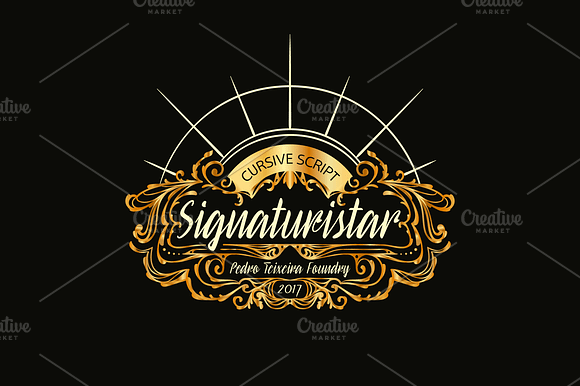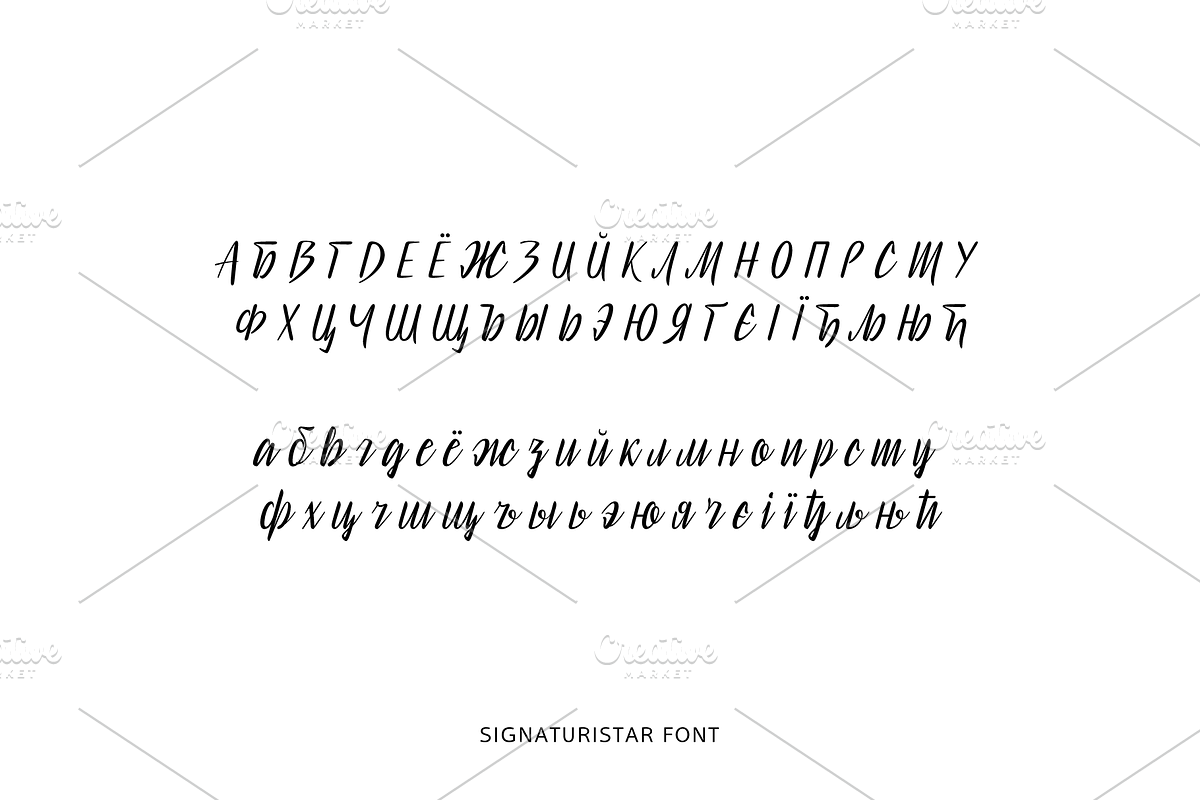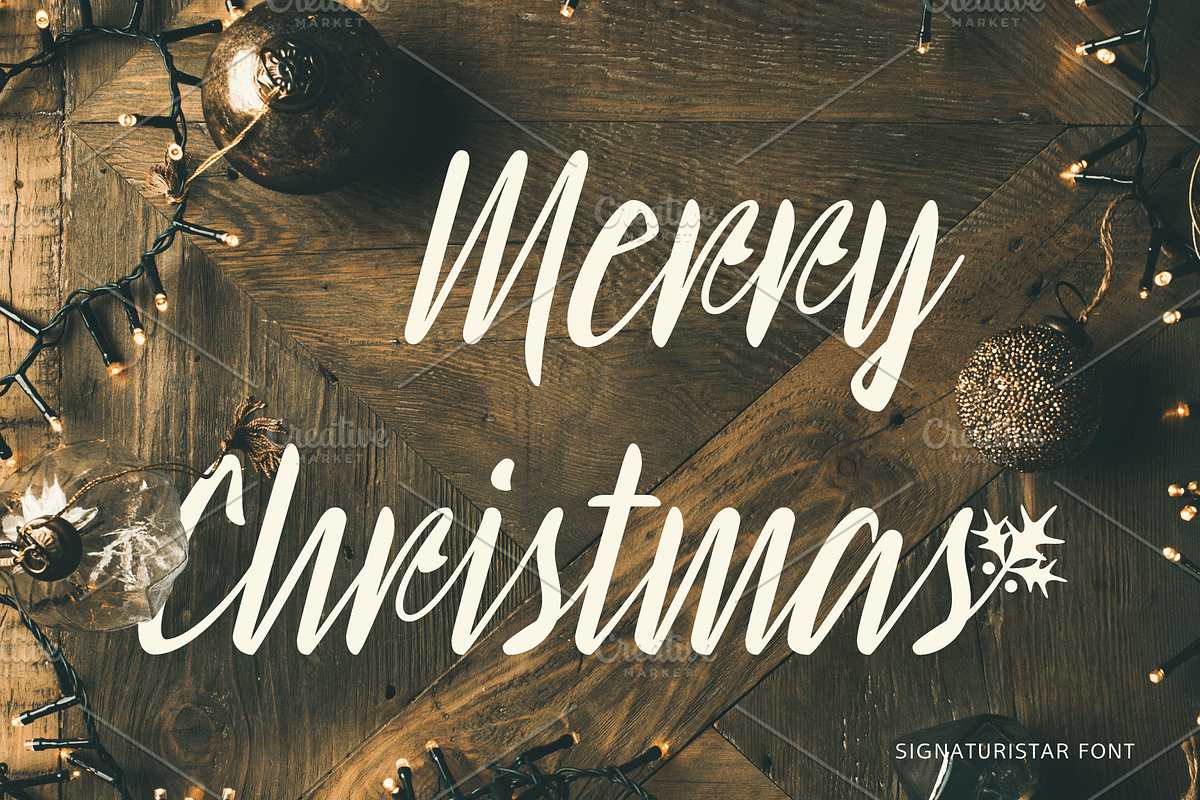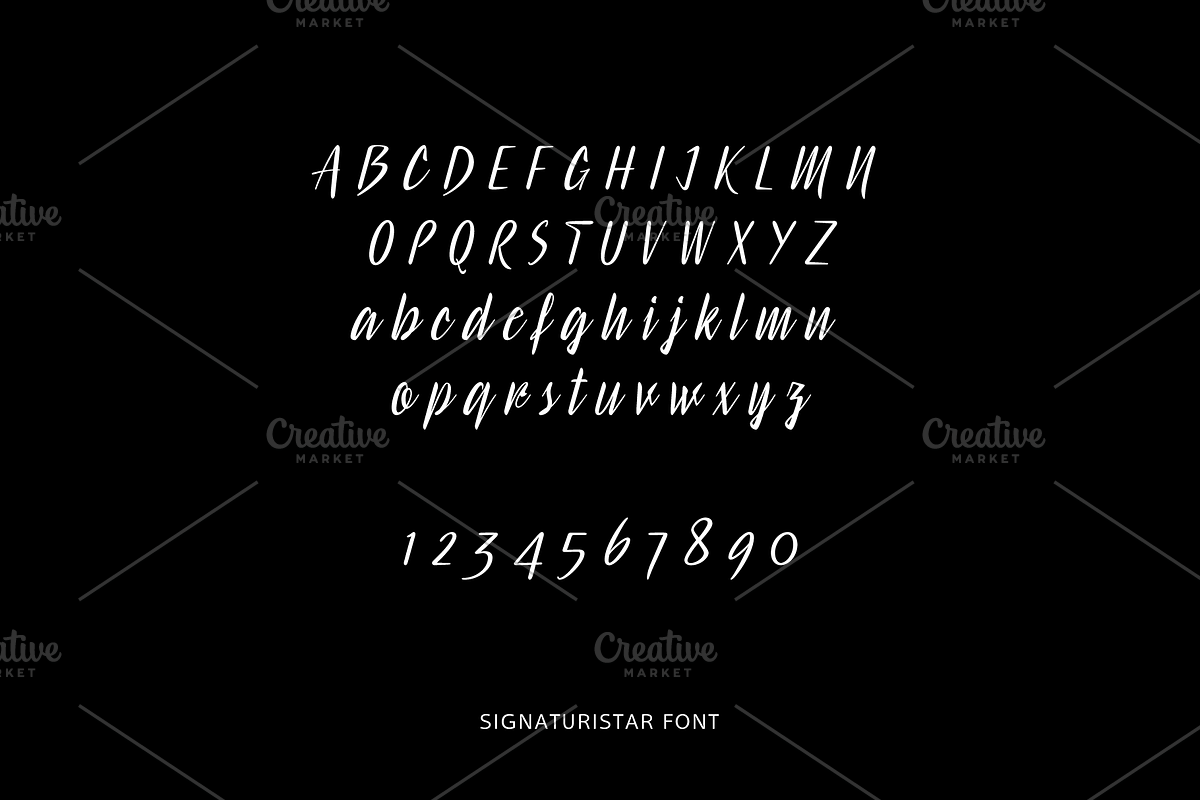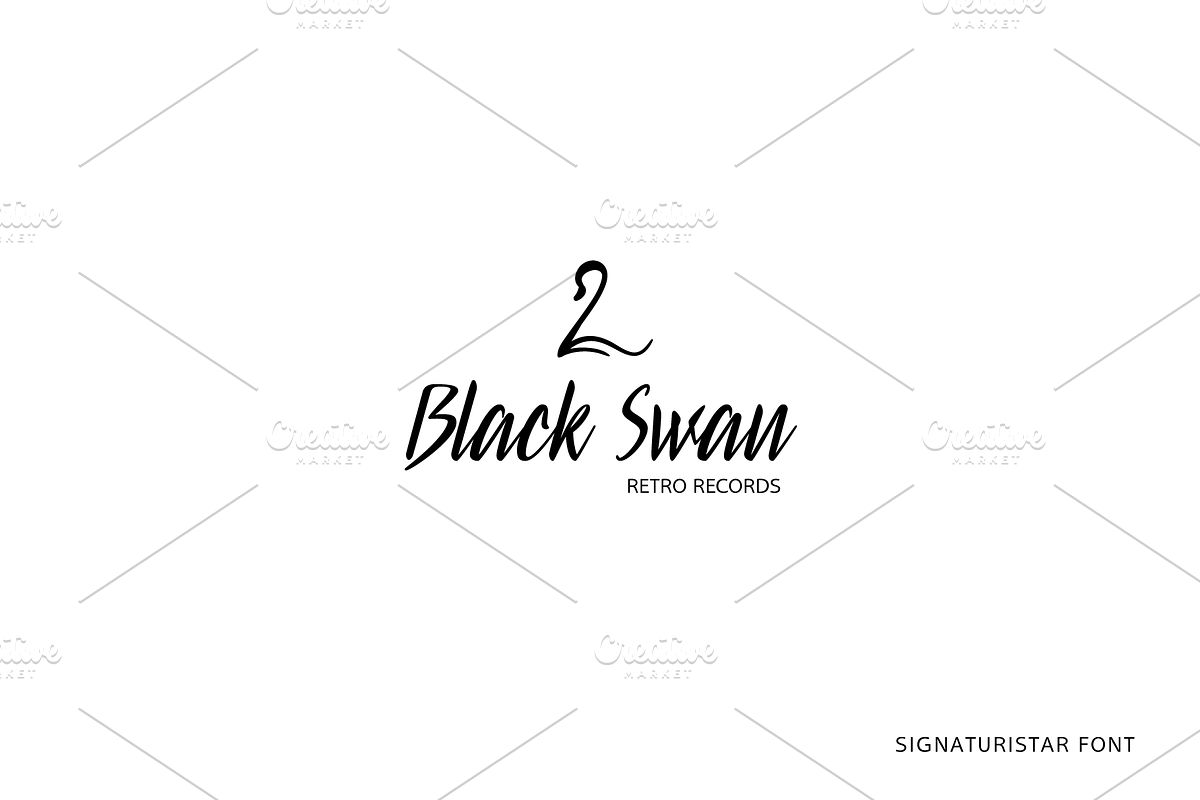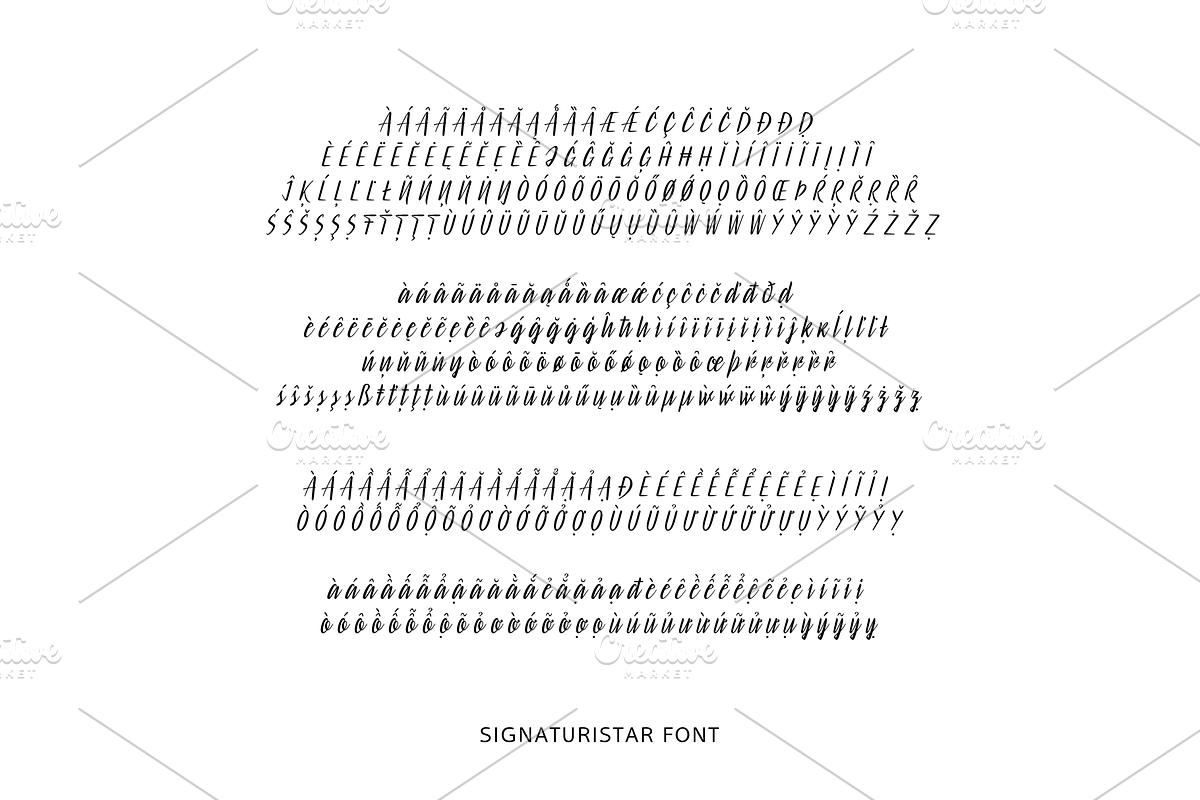
Signaturistar Font
Retro cursive script font with oldstyle figures
Multilingual supported: Central Europe, Baltic, Turkish, Romanian, Vietnamese and Cyrillic
Signaturistar Font by vectalex fits naturally into Branding, posters, packaging, typography.